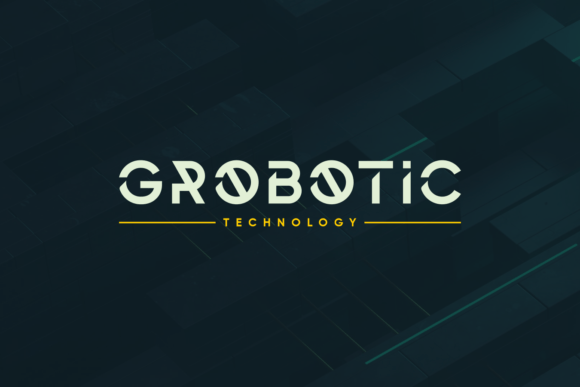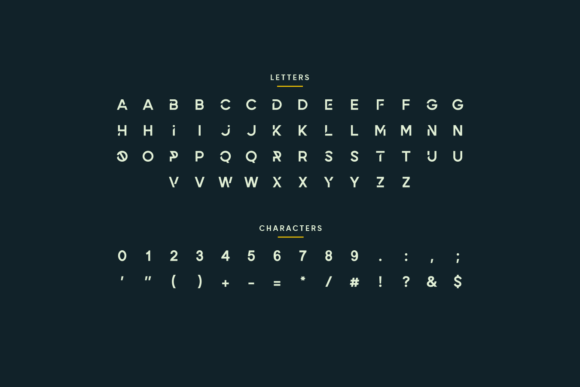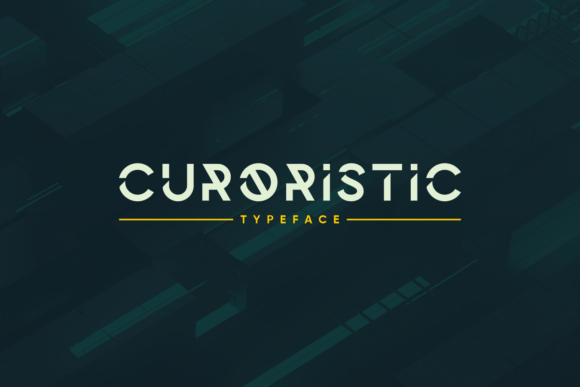
Introduction to Cronrox Font
As a designer, have you ever stared at a blank canvas, waiting for that perfect spark of inspiration to strike? For many creatives, the hunt for the ideal font can be just as daunting as starting from scratch. But what if I told you that there’s a font that could change the game for your next big project? Enter the Cronrox Font, a stylish and modern geometric typeface that’s about to become your new best friend.
With its clean, clear, and firm lines, Cronrox Font is the perfect design resource for any creative project. Whether you’re working on a business logo, brochure, or poster, this font is sure to make your design stand out. And the best part? It’s available for free download, complete with a transparent background, making it easy to integrate into your project.
Key Features of Cronrox Font
- Cronrox Font is a high-quality design resource ideal for creative projects, offering a unique and modern aesthetic.
- The Cronrox Font features a transparent background, allowing for seamless integration into various design elements.
- This font includes a range of characters, including uppercase and lowercase letters, numbers, and punctuation marks.
- Cronrox Font is designed to be highly legible, even at small sizes, making it suitable for a variety of design applications.
- The font size is scalable, allowing designers to adjust the font size to suit their specific design needs.
Honest Review: Cronrox Font
I recently stumbled upon the Cronrox Font, and I must say it’s been a valuable addition to my design resource collection. As a designer, I’m always on the lookout for high-quality fonts to elevate my creative projects.
The Cronrox Font offers a sleek and modern aesthetic, perfect for a variety of design applications. I particularly appreciate its versatility and the fact that it’s available for a free download, making it a great option for designers working on a budget.
What works well: ✨ The font’s clean lines and simple design make it easy to read, even at smaller font sizes. ✨ The transparent background option provides a seamless integration with any design element.
However, I do have some reservations: ⚠️ The font selection is somewhat limited, and I wish there were more options to choose from. ⚠️ The font’s bold weight could be more pronounced, as it sometimes gets lost in the design.
Overall, I’m impressed with the Cronrox Font’s potential and would definitely recommend it to designers looking for a high-quality, modern font. With a little more development, I believe it could become a go-to design resource for many creative projects.
- High-quality, modern design
- Limited font selection
- Bold weight could be more pronounced
How to Use Cronrox Font
Cronrox Font is a high-quality design resource perfect for creative projects that require a unique and stylish touch. This free download is ideal for designers and artists looking to elevate their work with a sophisticated font.
Tips for Getting the Most Out of Cronrox Font
For a seamless design experience, ensure that the font is applied correctly by checking the transparent background option. Experiment with different font sizes and styles to achieve the desired effect.
Cronrox Font is suitable for various design projects, including:
- Infographics
- Business cards
- Marketing materials
Alternatives to Cronrox Font
Great Vibes Font is a high-quality, elegant script font perfect for creative projects that require a sophisticated and refined design. It’s ideal for wedding invitations, branding materials, and any design that needs a touch of luxury. Great Vibes Font is available for free download and features a transparent background, making it easy to use on any design resource.
Compared to Cronrox Font, Great Vibes Font has a more refined and sophisticated look, making it suitable for high-end design projects. While Cronrox Font has a more playful and casual feel, Great Vibes Font is better suited for formal and elegant designs.